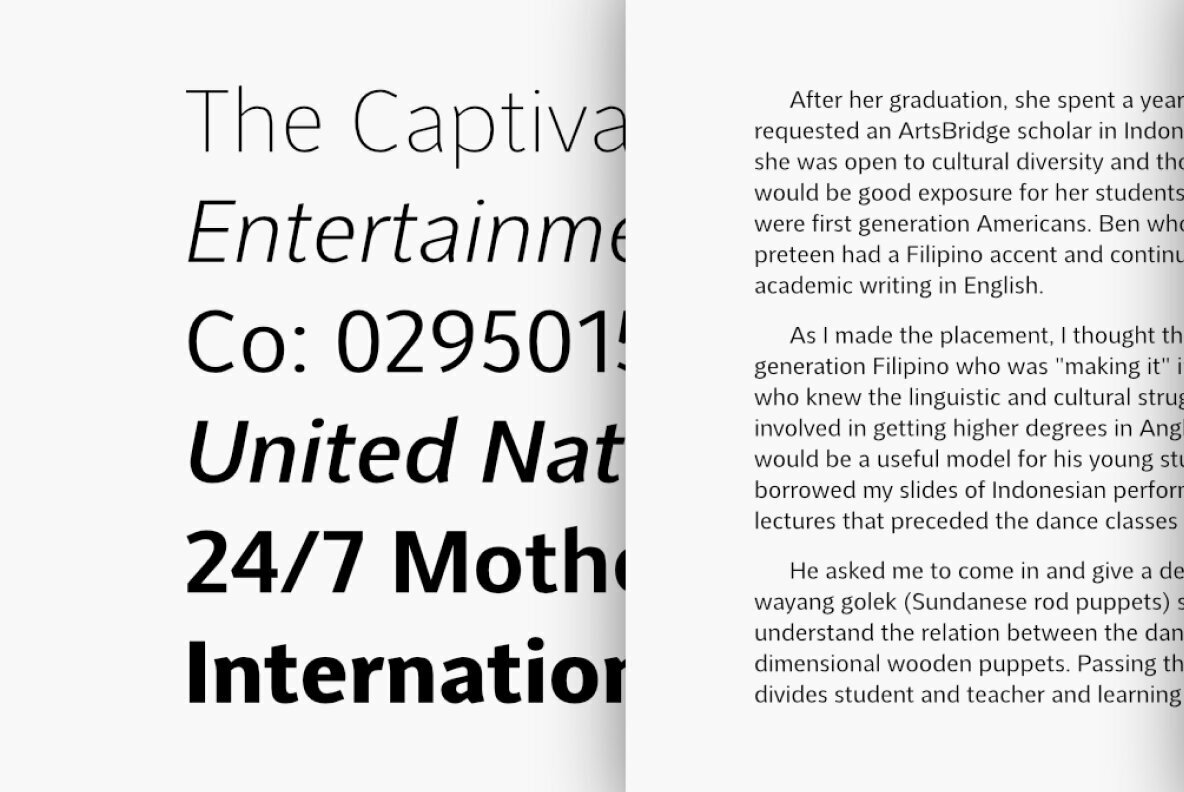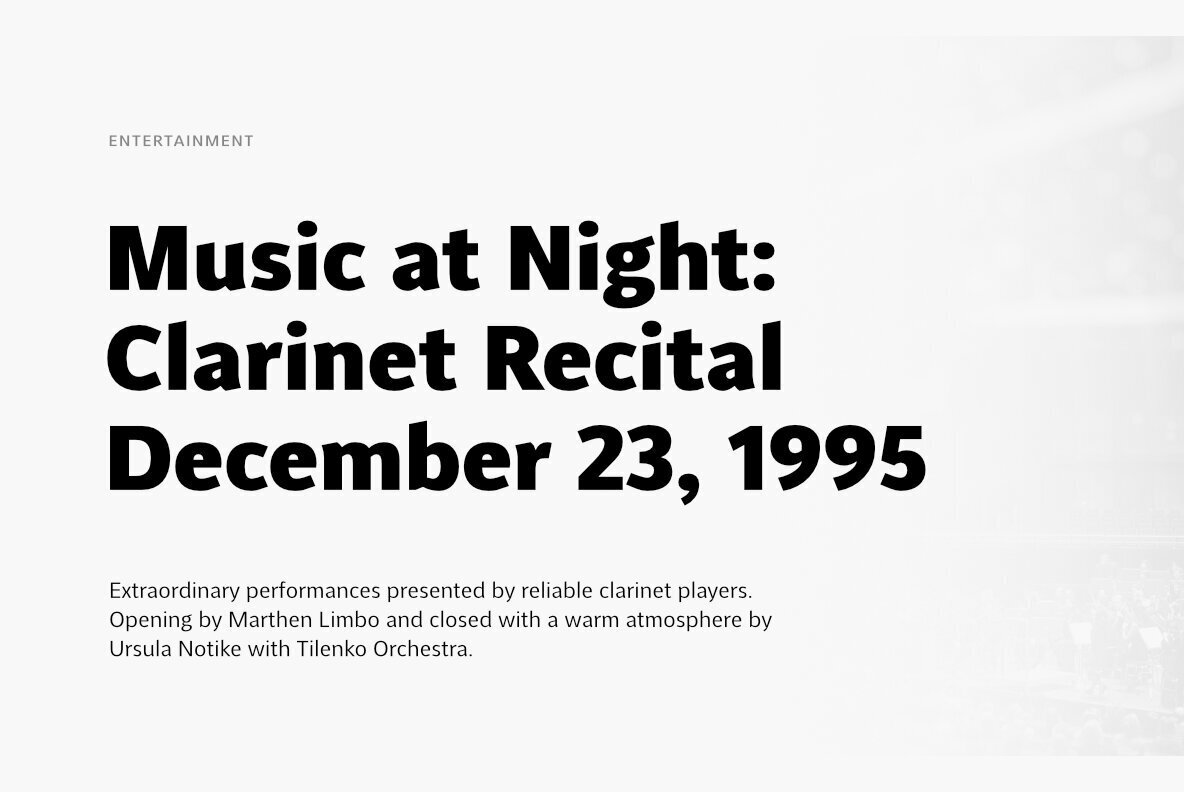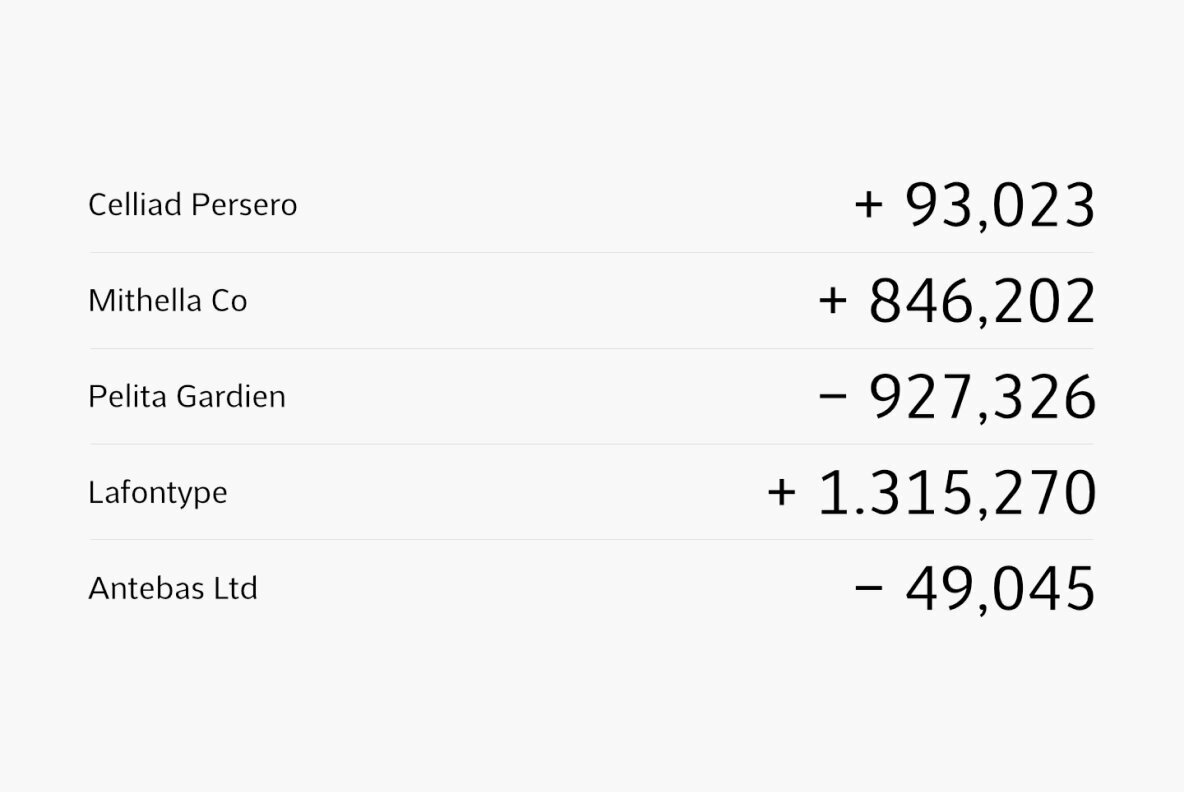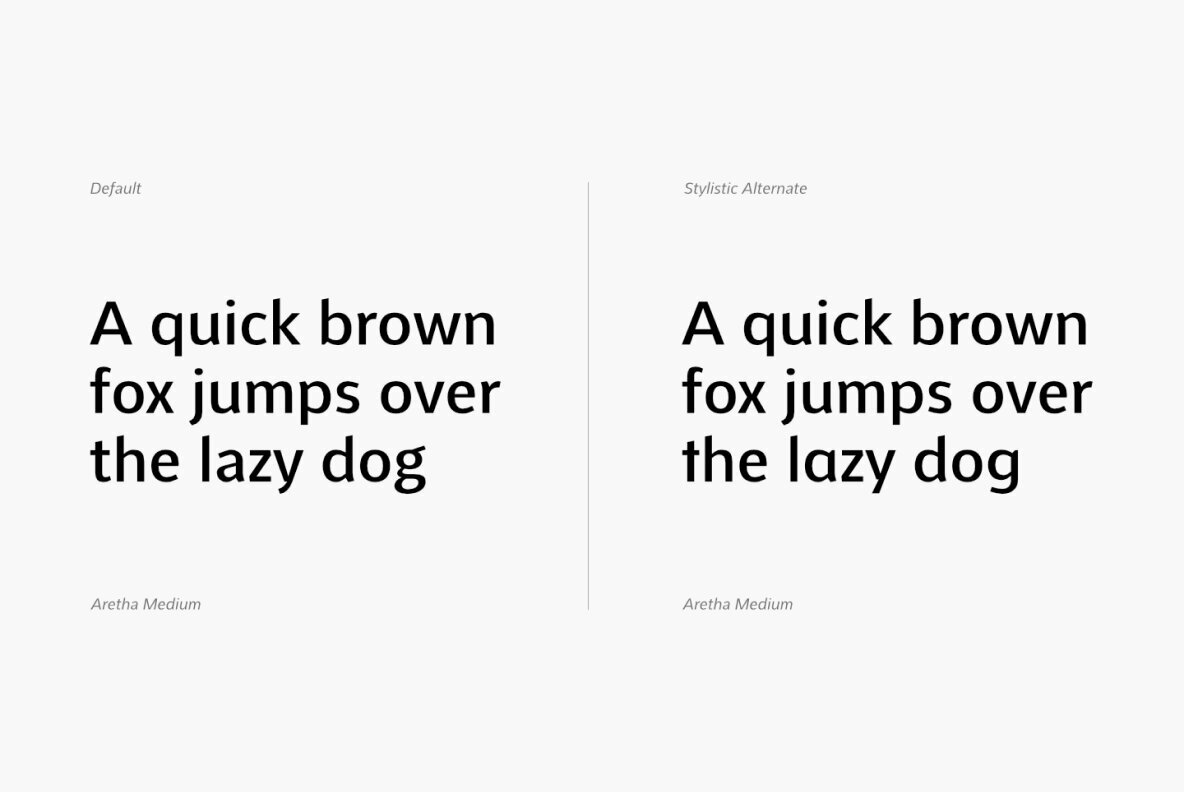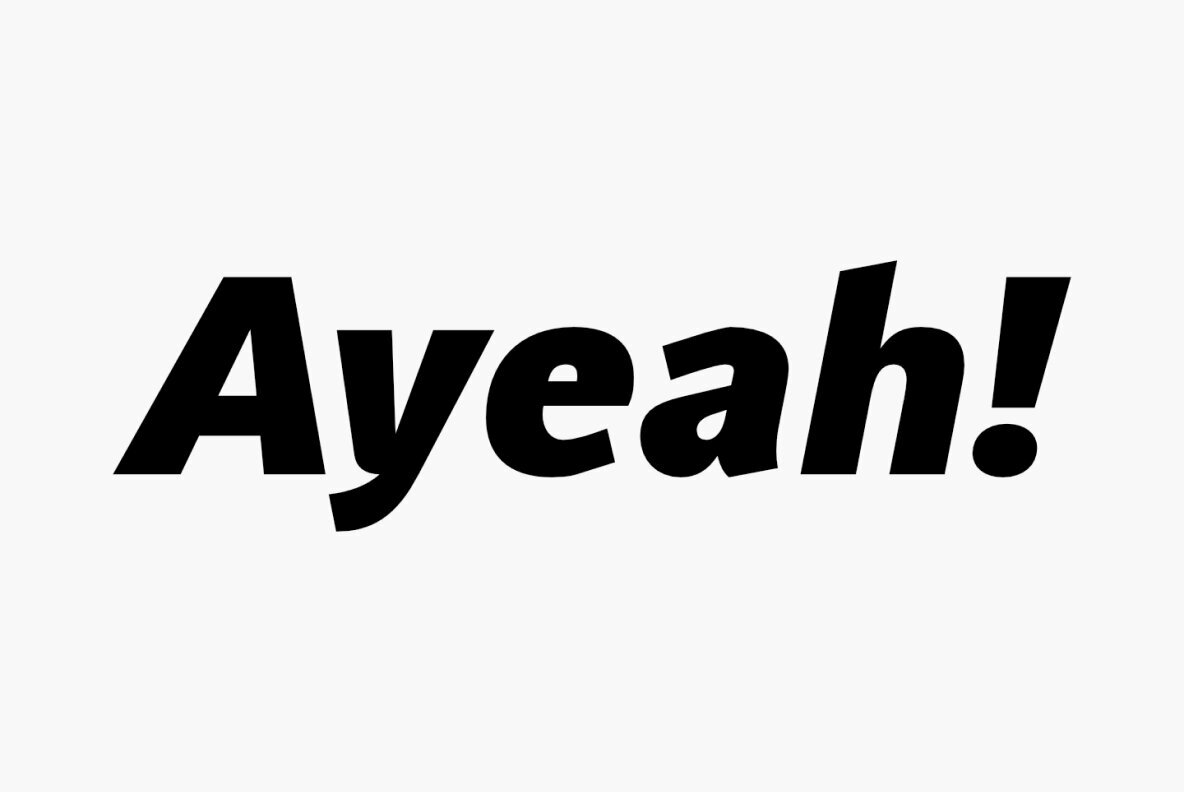
Aretha Font
Aretha is a classy and beautifully designed sans serif font. Its main idea is to combine the humanist sans serif style with traditional elements to create a pleasant atmosphere for the reader. The horizontal strokes of Aretha are slightly thinner, allowing for wider counters and a firm impression on the letters. Aretha not only works well in display sizes but also in text sizes. It supports multiple languages and includes several OpenType features such as tabular figures and stylistic alternates for letters like a, g, t, and y, making it suitable for various design needs.